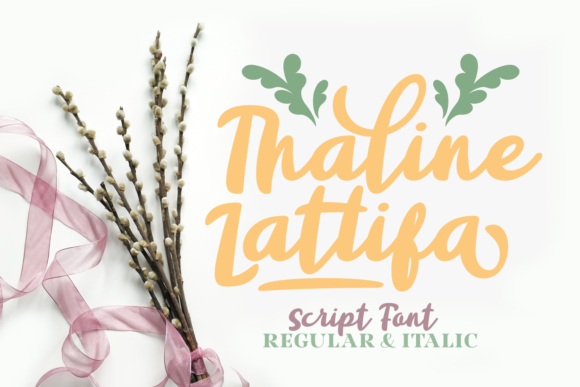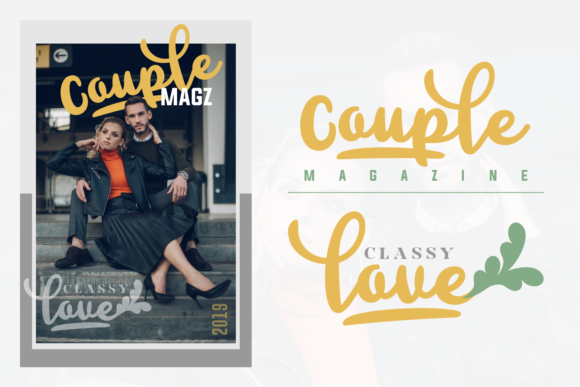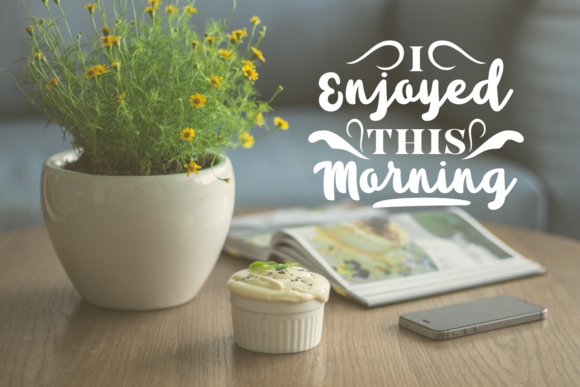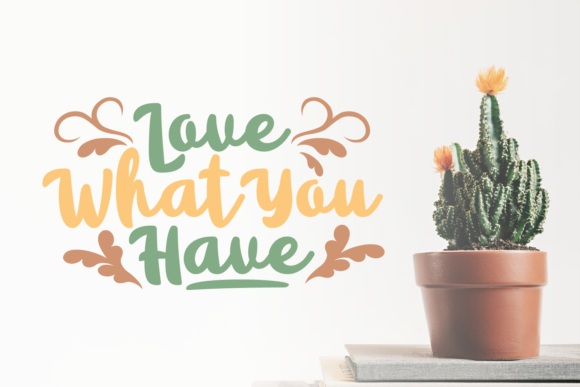
Thaline Lattifa Font
About Thaline Lattifa Font
Thaline Lattifa is a script font that includes regular and italic styles. This font is great for branding, posters, apparel, and much more.